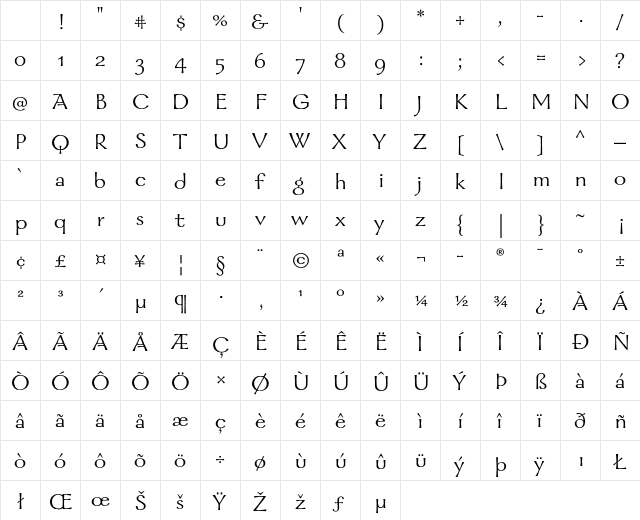
Galahad OsF
Style: OsF
Design Context for Galahad
Galahad is a composed and adaptable typeface that performs quietly and consistently across a wide range of design contexts.